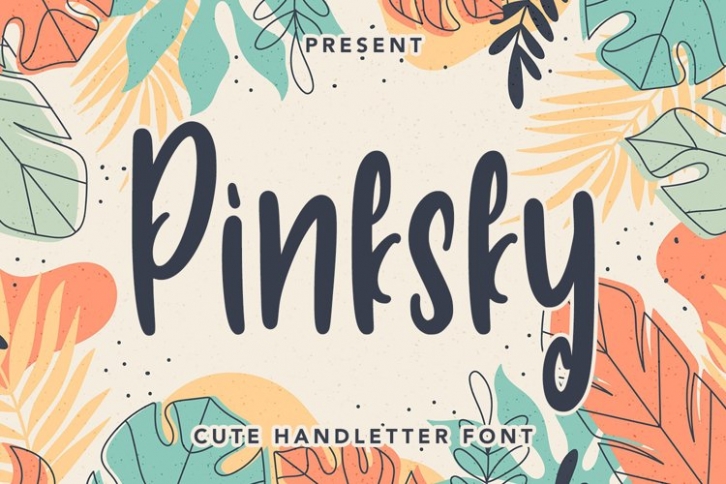
Pinksky is a great font that was designed by plusstore. Imagine the amount of combinations you can create using this font! The archive is 20.33 MB and it was released on July 31, 2021. Pinksky looks beautiful on wedding invitations, greeting cards, logos, posters, labels, t-shirt designs, logos, business cards and is perfect for use in ink or watercolor works, fashion, magazines, packaging and food menus, children's books and more!